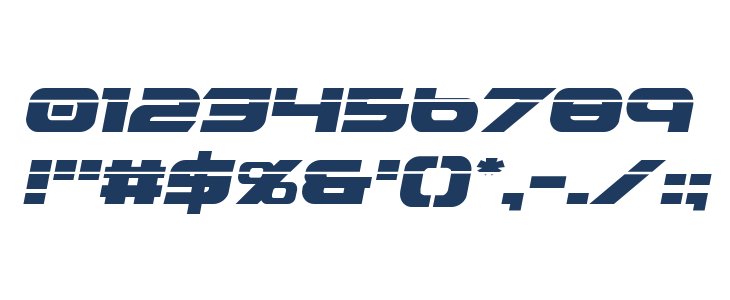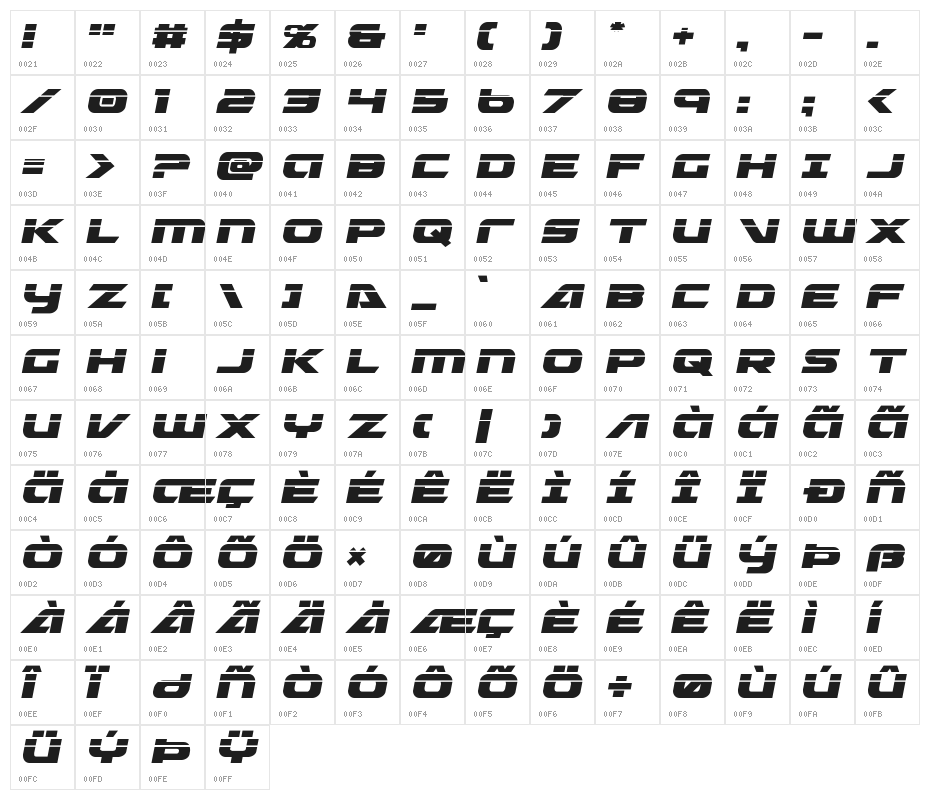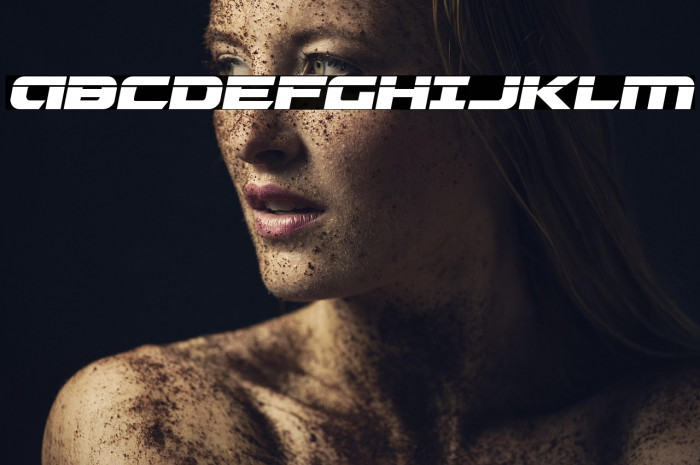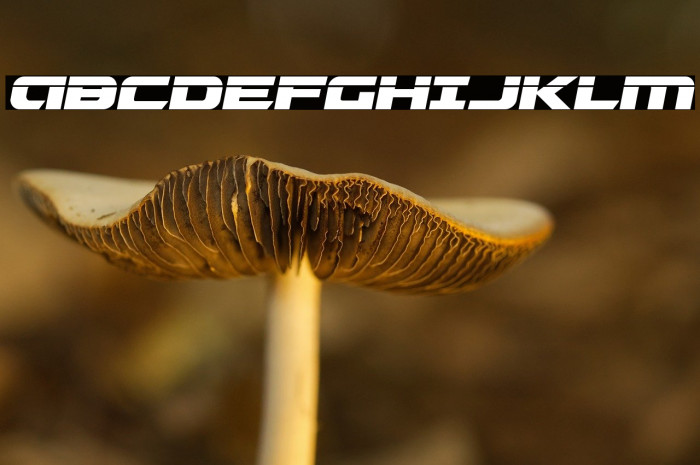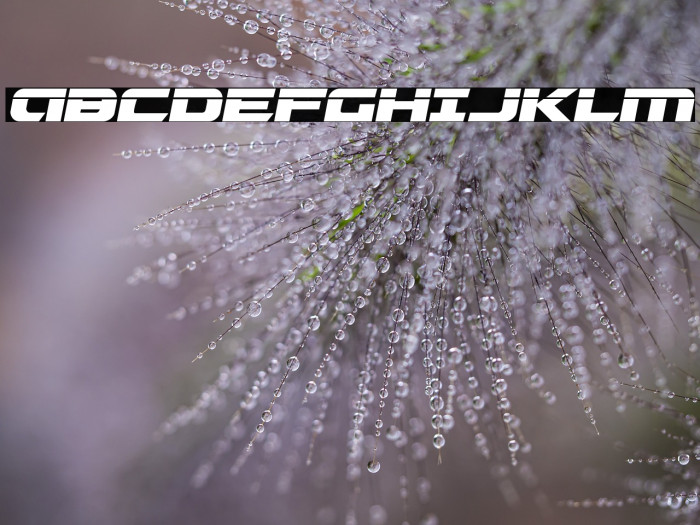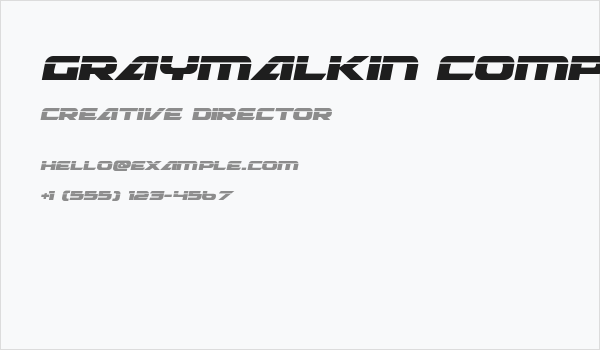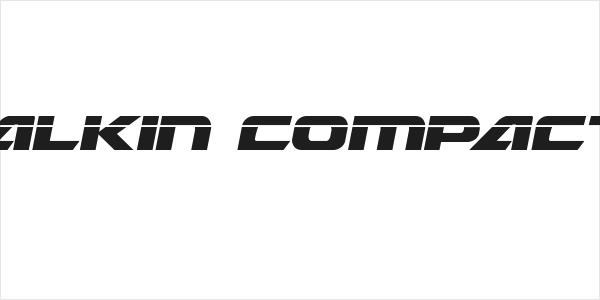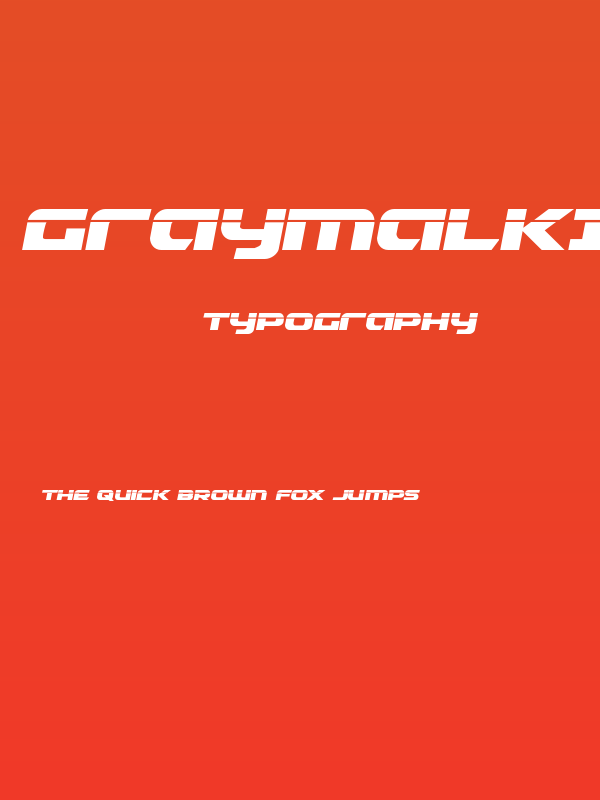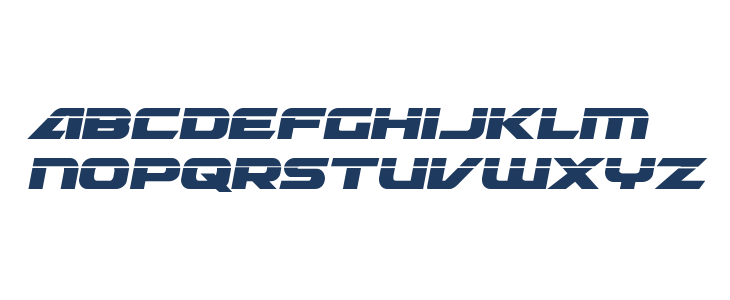
Graymalkin Compact Laser Font
Graymalkin Compact Laser Description
This font features a futuristic and angular design, characterized by sharp edges and a sleek, compact appearance. The letters are slightly slanted, giving a sense of motion and speed. The geometric shapes and clean lines create a modern and technological feel, making it suitable for projects that require a cutting-edge look. The font maintains a consistent weight throughout, with medium contrast in stroke thickness. Its unique style is eye-catching and ideal for creative and innovative designs.
| Proposed Projects | Ideal for technology branding, sci-fi posters, video game titles, and modern advertising campaigns. |